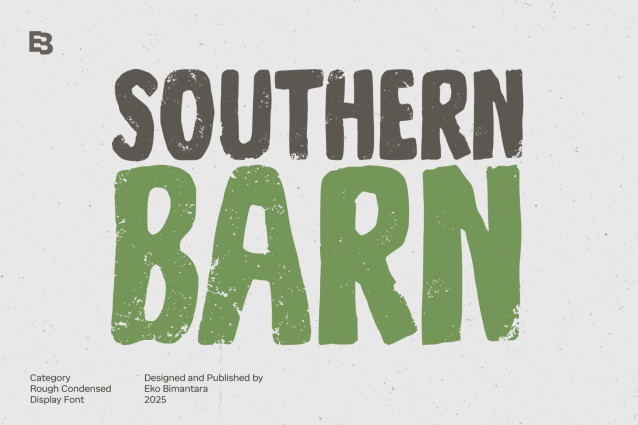
Southern Barn Font by Eko Bimantara is a chunky, comic, and cartoon display font. With its neat and joyful personality, this font will enhance any project you wish to create!
| Designer Name: | eko bimantara |
| Classification: | Display Fonts, Playful / Fun Fonts |